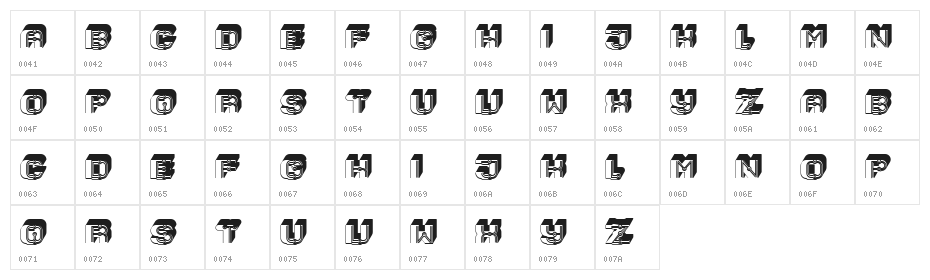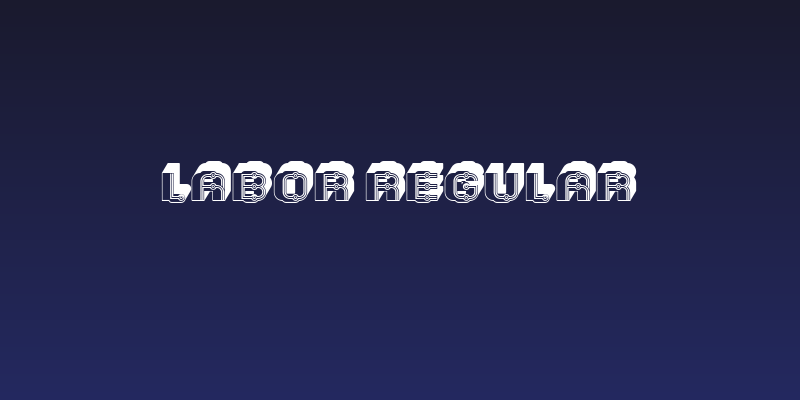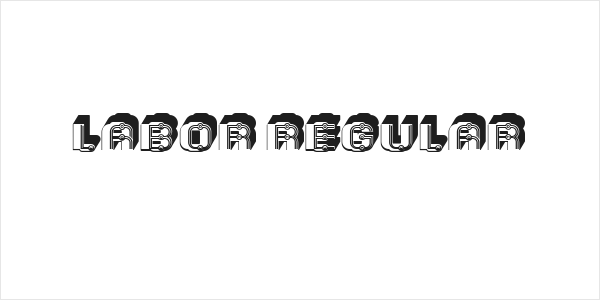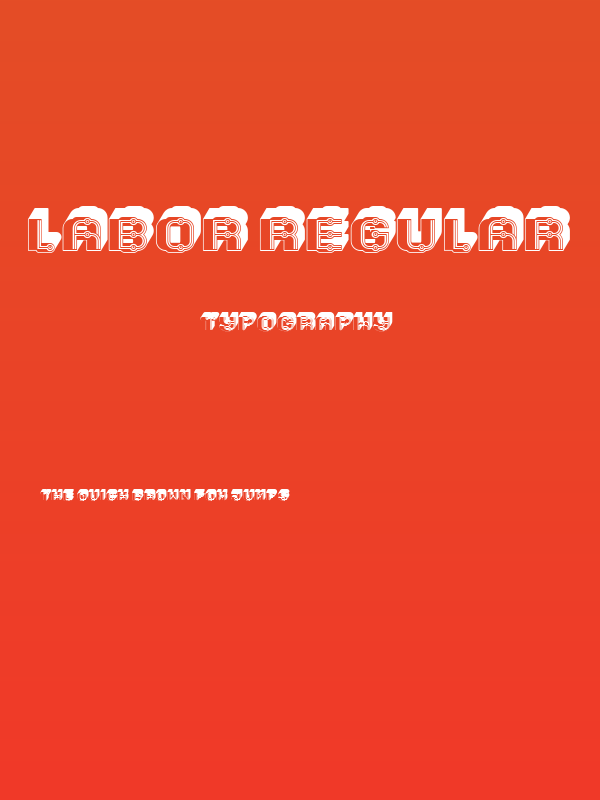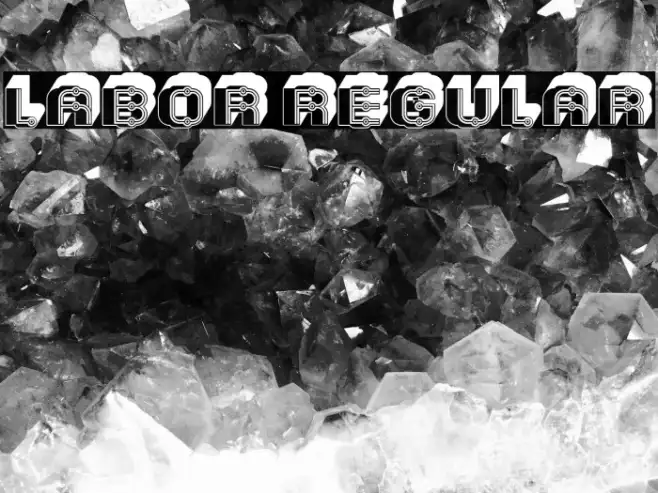
Labor Regular Font
Labor Regular Description
This font features a bold, three-dimensional design with a distinct industrial and mechanical aesthetic. Each character is constructed with a solid, blocky structure, enhanced by intricate line work that creates a sense of depth and complexity. The font's unique style is characterized by its geometric shapes and sharp angles, giving it a futuristic and technical appearance. The use of shading and outlines adds to the dimensional effect, making the characters appear as if they are popping off the page. This font is ideal for projects that require a strong, impactful visual presence.
| Proposed Projects | Ideal for branding, posters, video game graphics, and any project requiring a strong, technical look. |